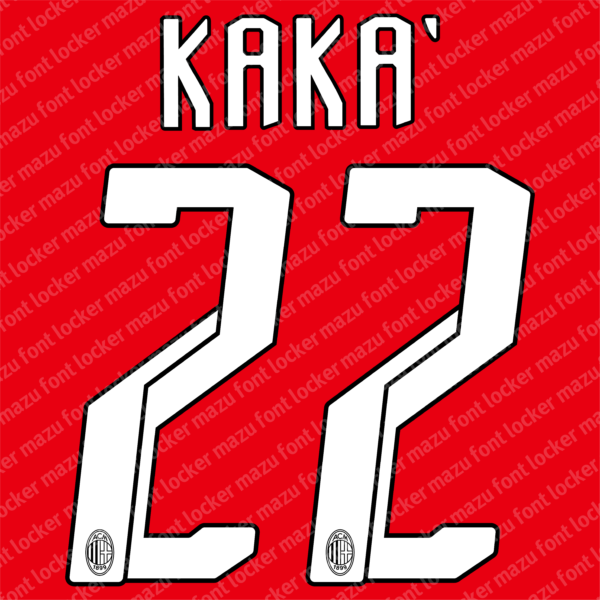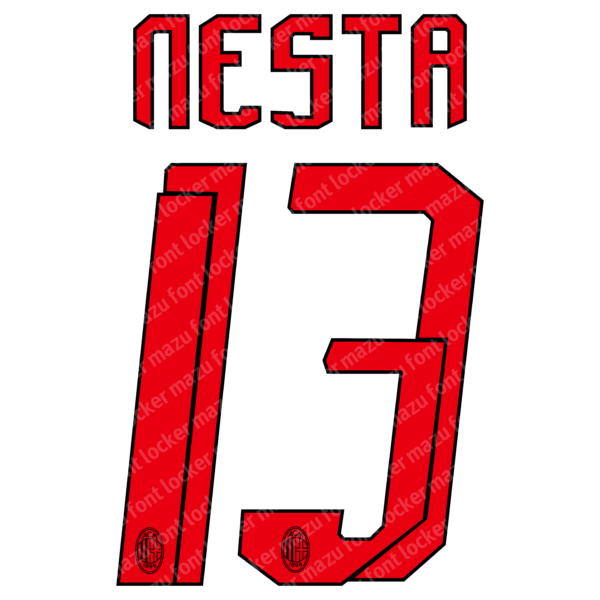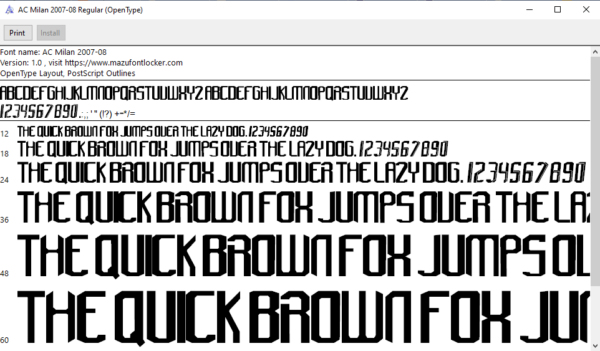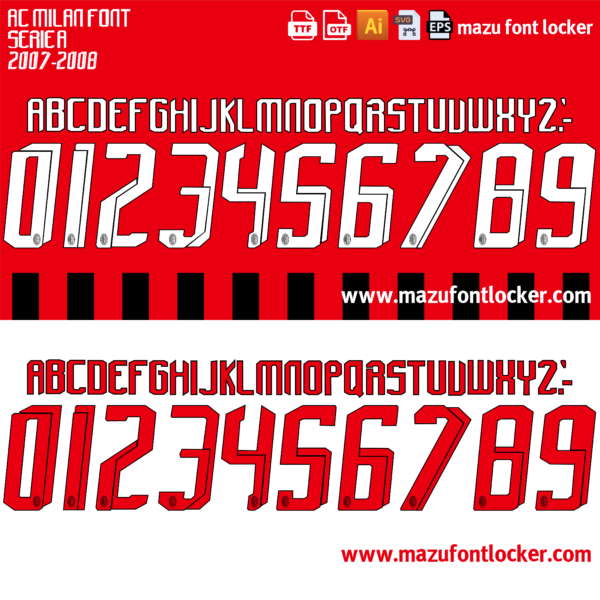
AC Milan 2007-2008 Font Vector – Legendary Rossoneri Scudetto Masterpiece
This premium font captures the historic, European-champion–crafted, and effortlessly elegant match lettering that embodies the Rossoneri legacy — delivering authentic Milanese passion, explosive San Siro atmosphere, disciplined tactical mastery, world-class experience, legendary Champions League pedigree, and the timeless black-and-red roar that defined one of AC Milan’s most iconic modern football eras.
AC Milan 2007-2008 Font Vector – Classic Rossoneri Era Typeface Masterpiece
The AC Milan 2007-2008 Font Vector is a premium typeface that faithfully recreates the official match lettering used by AC Milan during the 2007-2008 season. This high-quality vector font kit captures the clean, bold, and highly legible typography seen on the backs of Rossoneri legends during the late 2000s era of European dominance.
This font stands out thanks to its UEFA-era clean typography rules and strong visual clarity. Every character has been carefully reconstructed to match the official nameset used throughout the 2007-2008 season, ensuring a truly authentic retro football design experience.
The lettering features a bold sans-serif construction with slightly squared edges, designed for maximum readability under UEFA kit regulations. The spacing is balanced and consistent, giving it a professional broadcast-ready appearance commonly seen in late 2000s European football kits.
The numerals are strong, uniform, and highly legible from distance. Built for both stadium visibility and television broadcast clarity, each number maintains a structured geometry that fits perfectly on AC Milan’s classic kits from that era.
• Complete uppercase A–Z alphabet and numbers 0–9 in authentic AC Milan 2007-2008 style